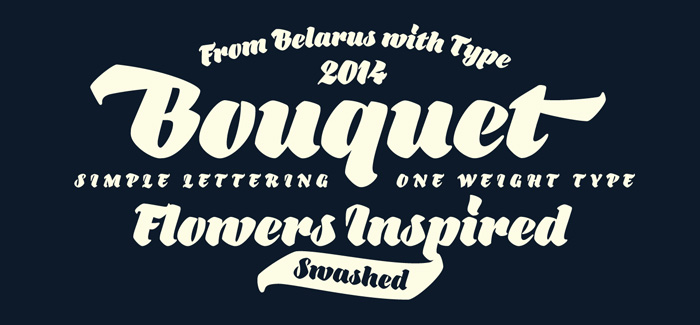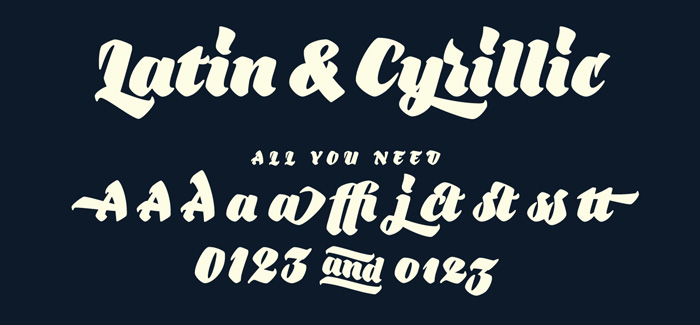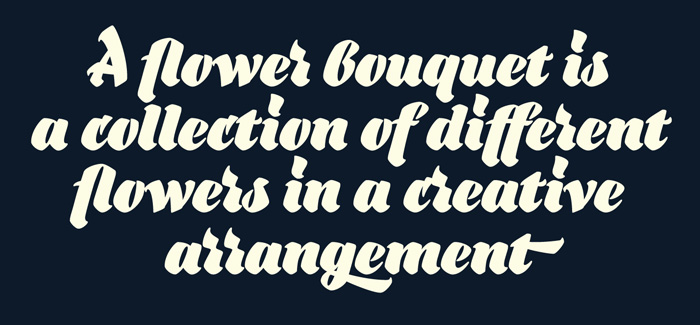
Bouquet font
Bouquet font is a cursive fat typeface influenced by brush writing and skilfully flavored with elements of fractur. The result is really amazing – a font with bespoke personality, strong unique presence and classy standing out amongst the other look. Type designer Dzianis Serabrakou really did well in every single letterform, aperture, curve and line, but this was probably below satisfactory and he didn’t stop here – Denis developed the font to a higher level by making it fully open-type compatible. Bouquet supports large set of multilingual diacritics plus a beautifully designed set of Cyrillic characters. Additionally you will be able to use also ligatures and really lots of alternative symbols to bring more life, versatility and personalization in your work. Initially Bouquet has been designed as a logo font – it is so identical that could easily turn every brand name into logo icon. Furthermore this font is perfect for designing t-shirts, typographic posters, packaging etc and it is highly recommended for letterpress as well as for normal offset and screen printing.